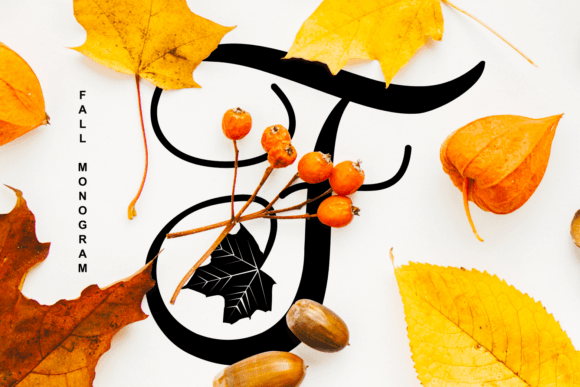
Unleash the beauty of your creativity with Fall Monogram Font, a decorative masterpiece crafted by Rusd Studio. Step into a world of elegance and charm as you explore this exquisite font family, designed to add a touch of sophistication and whimsy to your digital creations.
Fall Monogram Font is a captivating decorative font that exudes a timeless charm, perfect for creating stunning wedding invitations, heartfelt greeting cards, and captivating social media posts. With its delicate curves and intricate details, this font will transform your words into works of art, leaving a lasting impression on your audience.
Immerse yourself in the versatility of Fall Monogram Font, a font family that caters to a myriad of creative projects. Whether you're a seasoned designer seeking to elevate your branding or a hobbyist yearning to add a personal touch to your invitations, Fall Monogram Font is your perfect companion. Its elegant strokes and graceful flourishes will elevate your designs, adding a touch of sophistication and charm that will captivate your audience.
With Fall Monogram Font, you'll discover a font that's not just visually appealing but also incredibly user-friendly. Its smooth flow and well-balanced letterforms ensure effortless readability, making it perfect for crafting extended texts such as blog posts, articles, and e-books. The font's versatility extends to digital platforms, where it shines in web design, social media graphics, and online advertisements.
Fall Monogram Font is more than just a font; it's an invitation to unleash your creativity and explore the endless possibilities of visual expression. Embrace the beauty of its meticulously crafted characters and let your imagination soar as you create designs that resonate with your audience. Whether you're a seasoned professional or just starting your creative journey, Fall Monogram Font is the perfect tool to elevate your designs and leave a lasting impression.